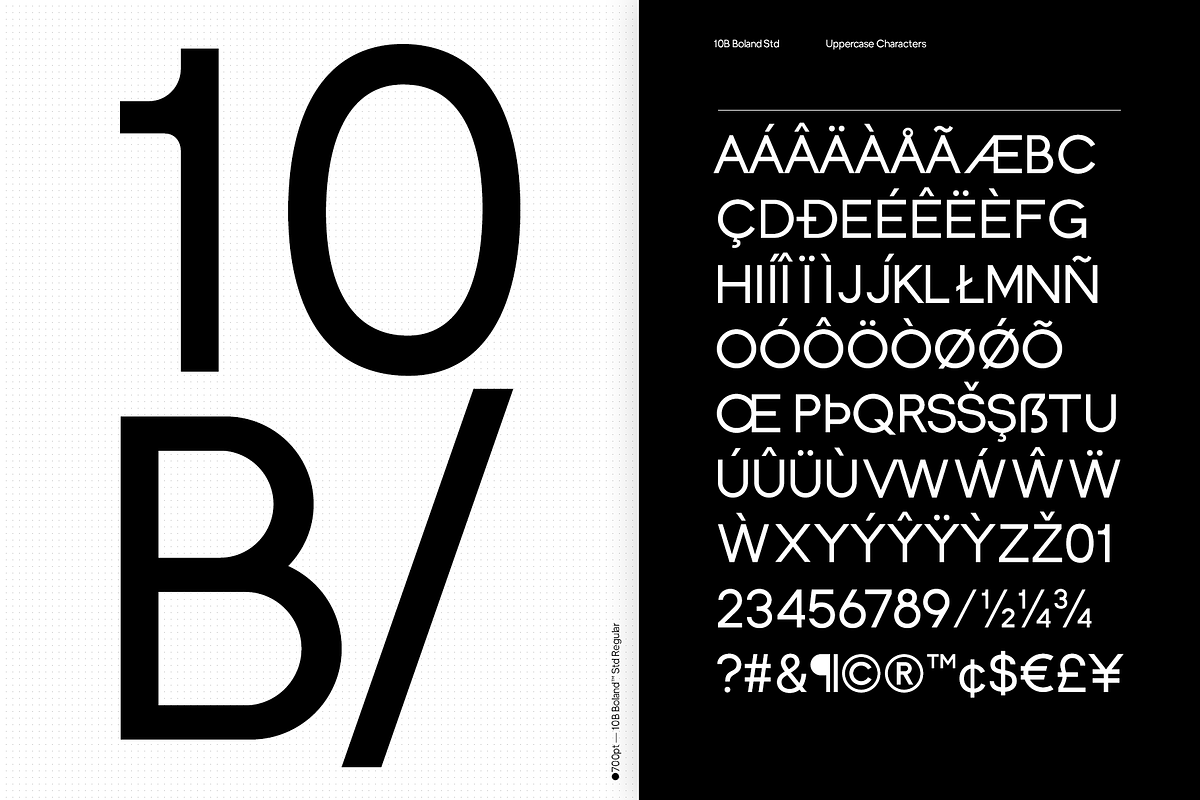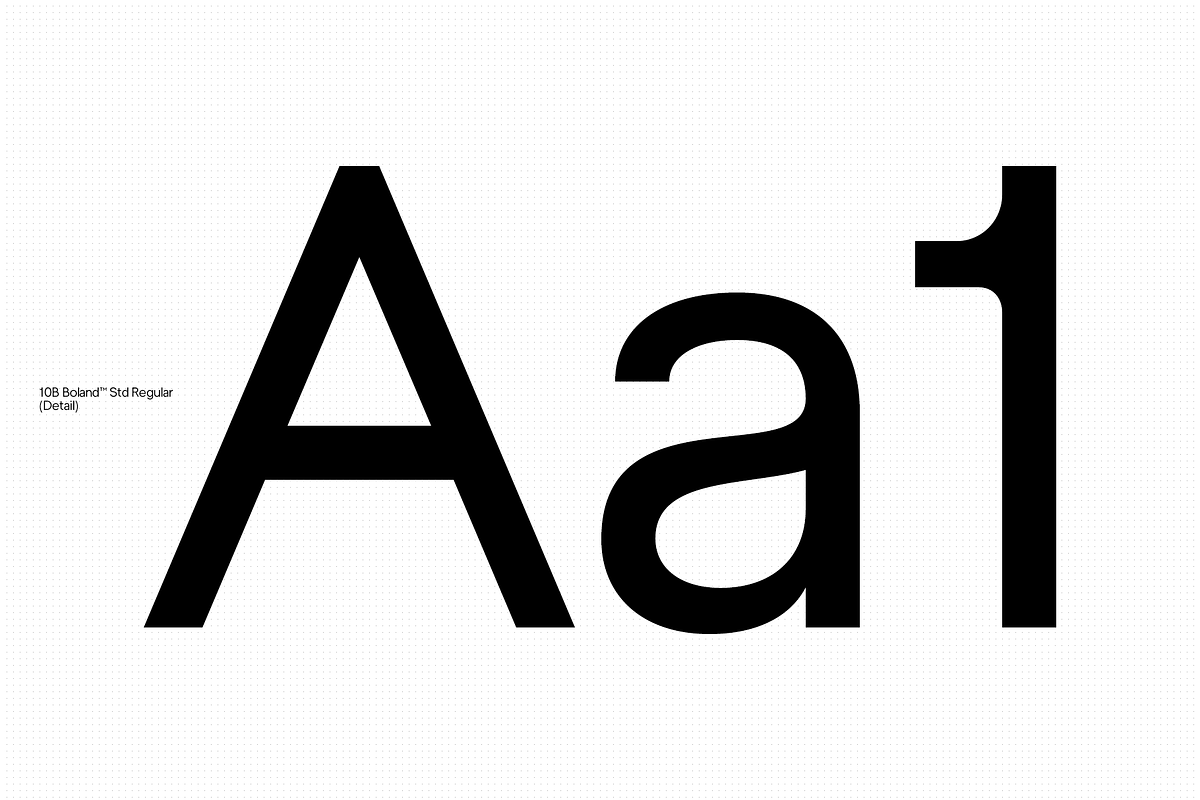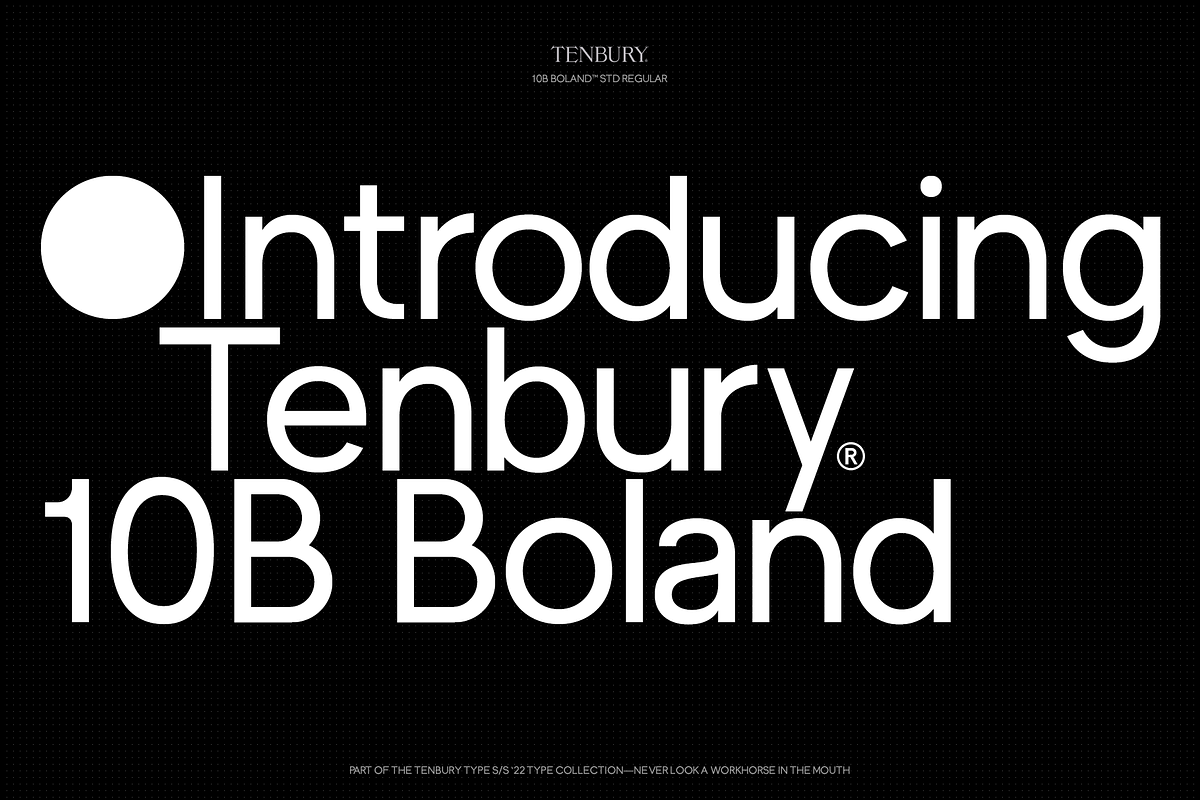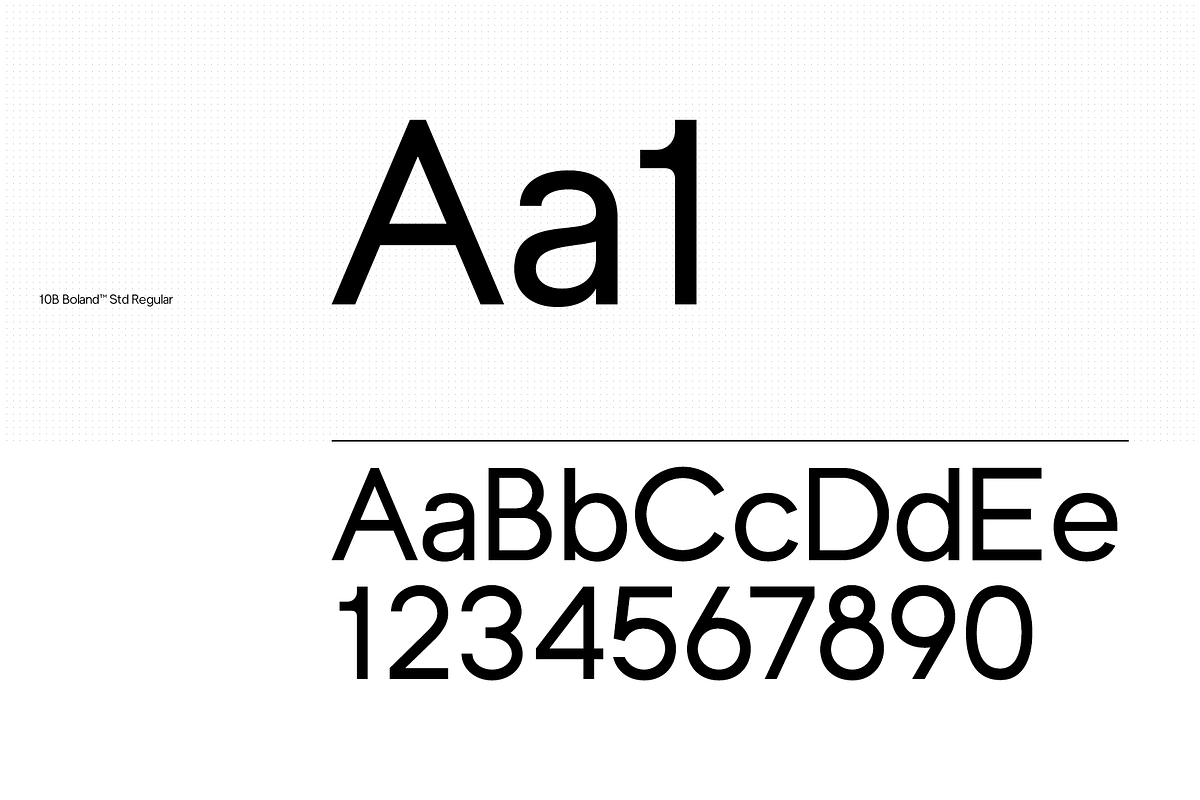
10B Boland: Timeless Geometric Sans
10B Boland is Tenbury Type's version of a white t-shirt and jeans, a timeless classic and a workhorse. A sexy geometric sans thats great for those big old oceans of copy, but looks great as a headline as well.
- Uppercase, Lowercase, Numerals, Punctuation & many more Symbols.
- Diacritics for Multilingual Support